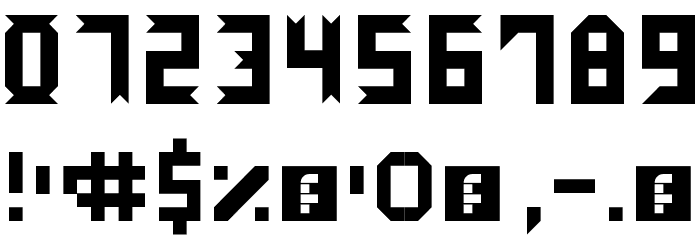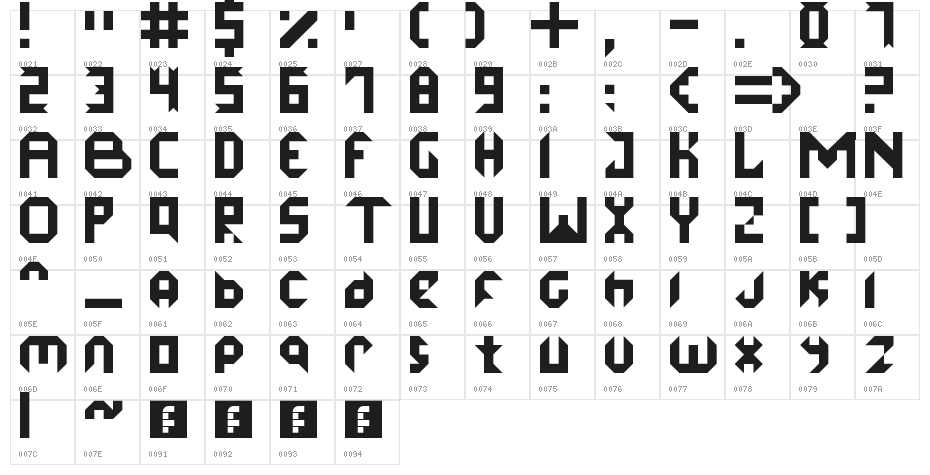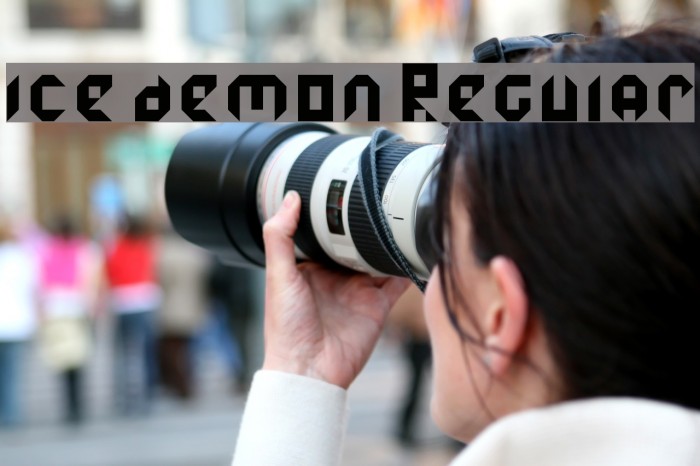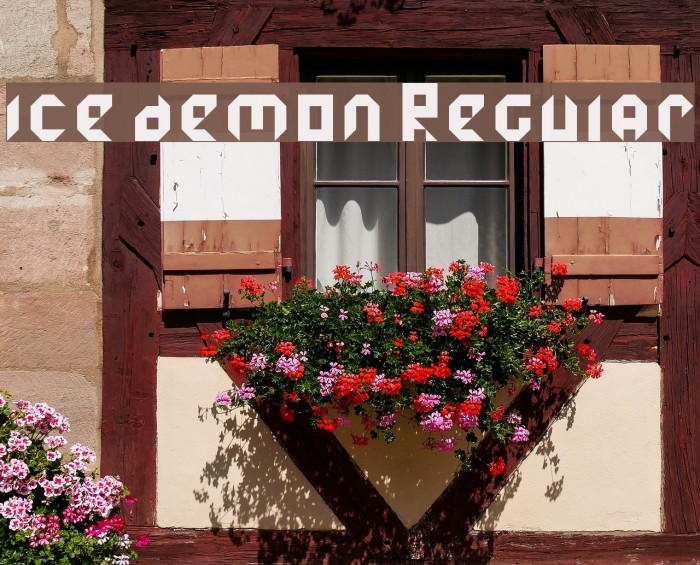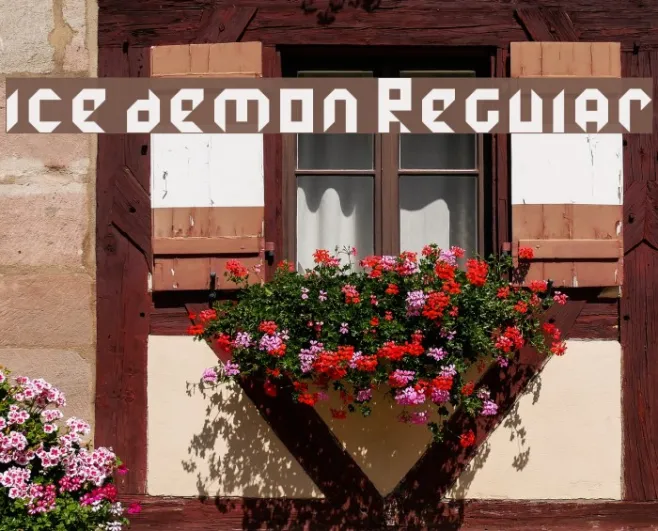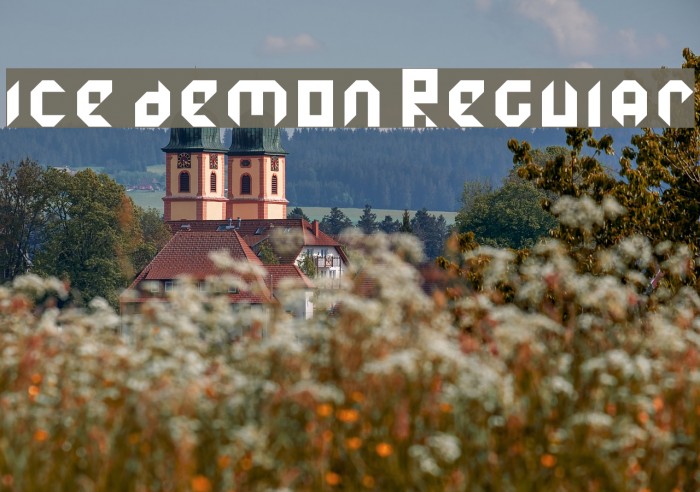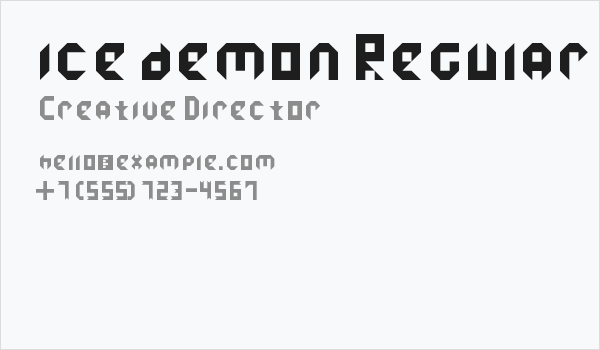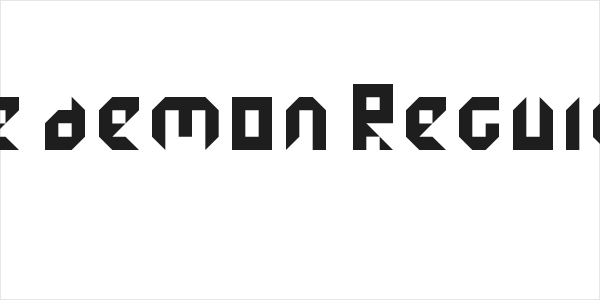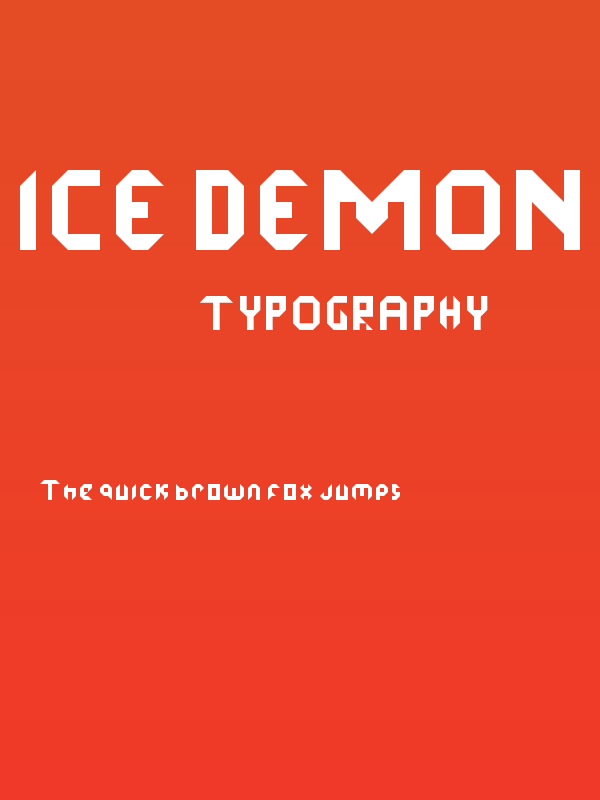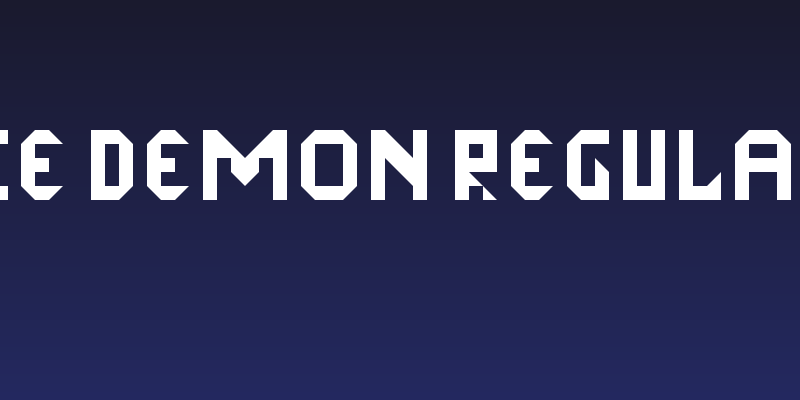
ice demon Regular Font
ice demon Regular Description
This font features a bold and angular design, characterized by sharp edges and geometric shapes. The uppercase and lowercase letters maintain a consistent style, with a strong emphasis on symmetry and structure. Numbers and special characters follow the same angular theme, creating a cohesive and striking appearance. The font's unique style makes it stand out, offering a modern and edgy look that is both eye-catching and memorable.
| Proposed Projects | Ideal for video game titles, sci-fi movie posters, edgy branding, and modern graphic design projects. |